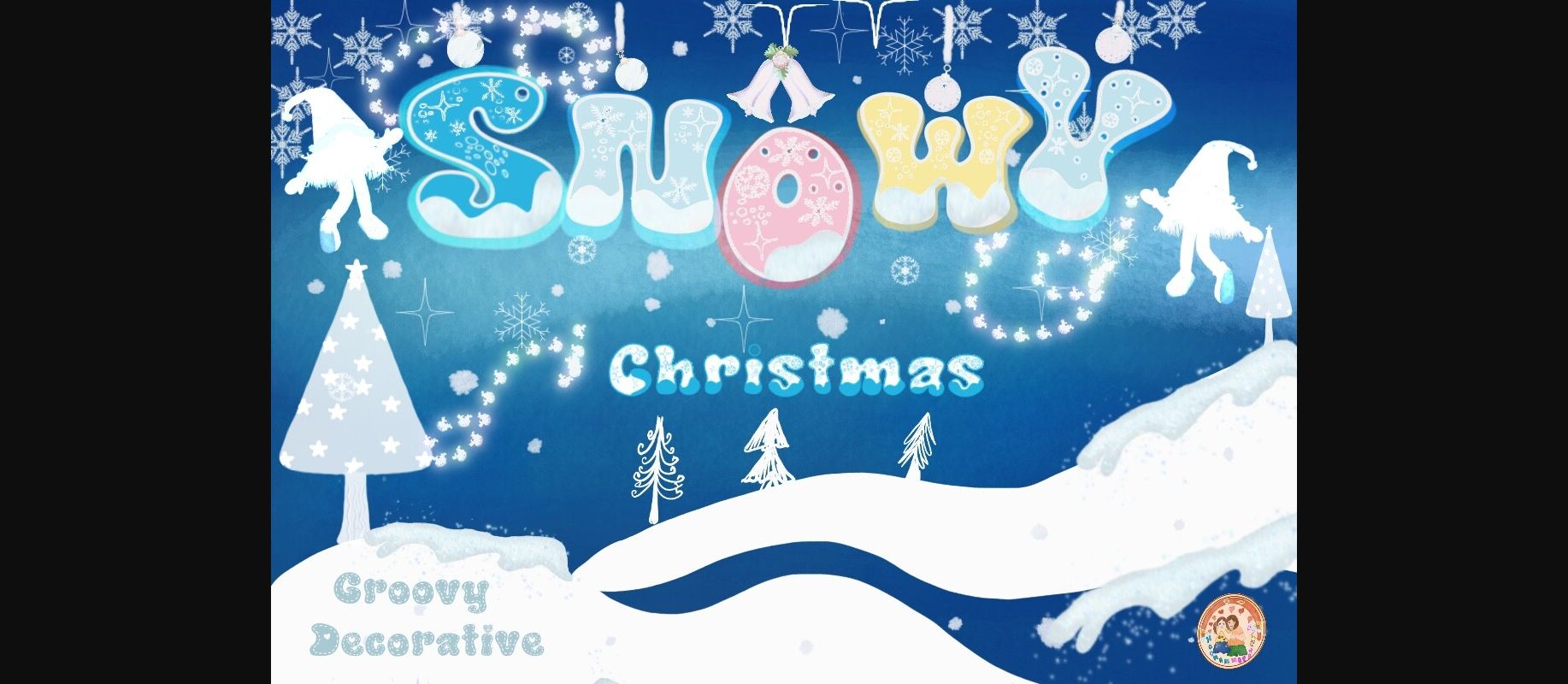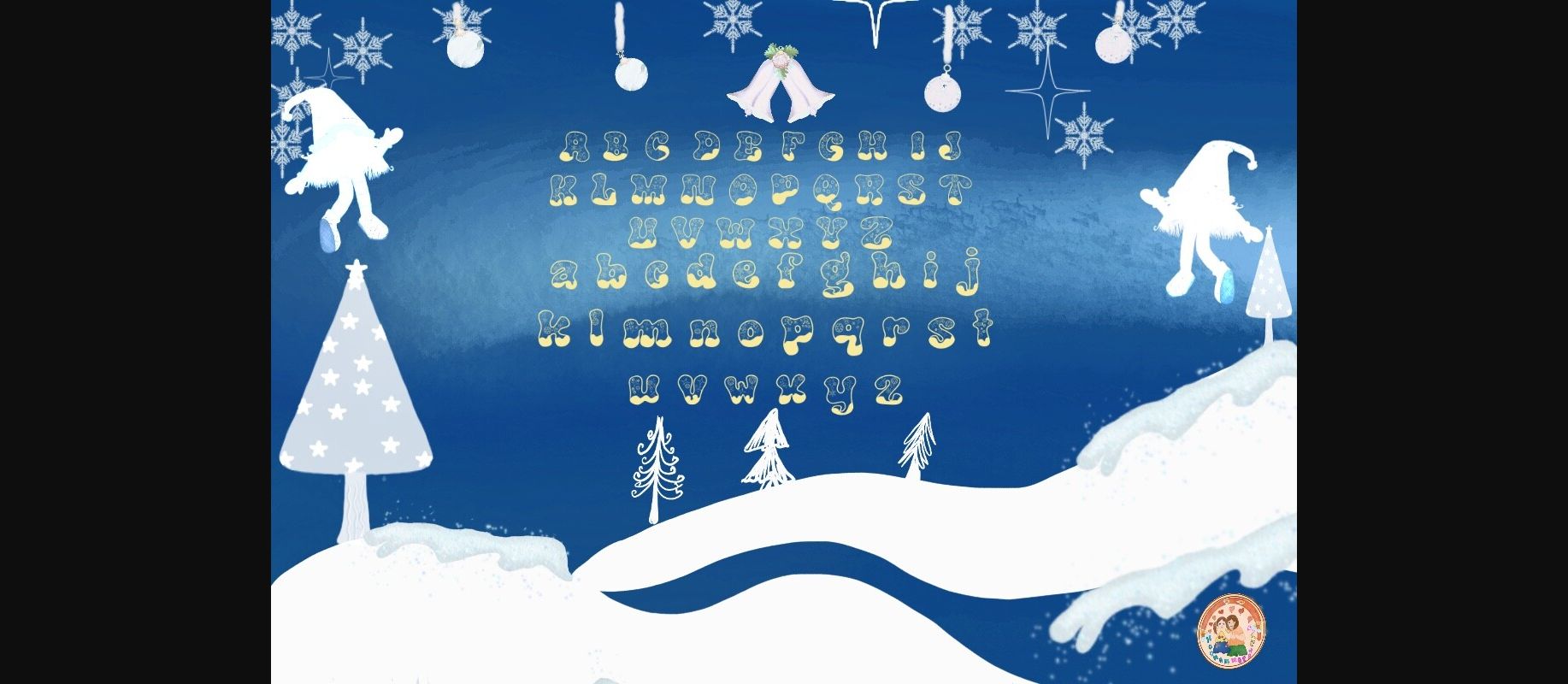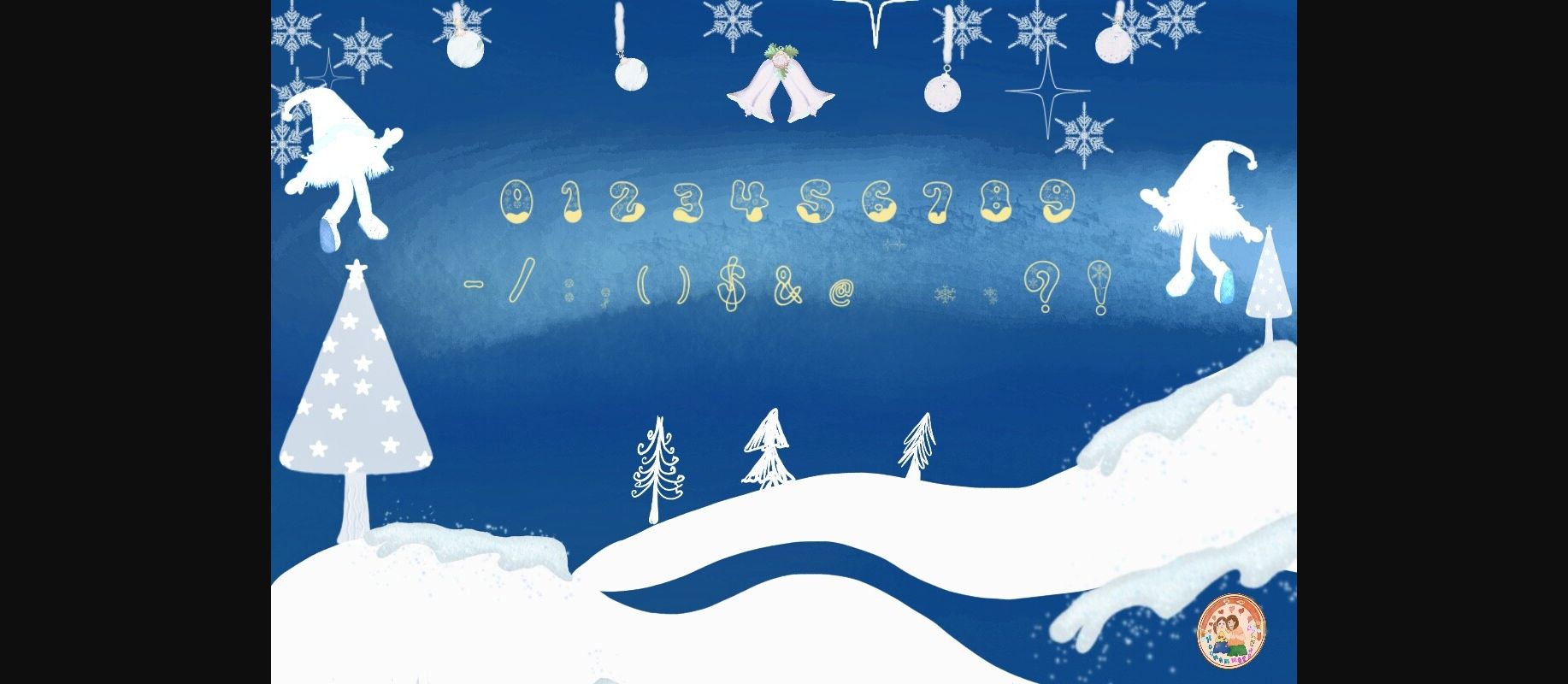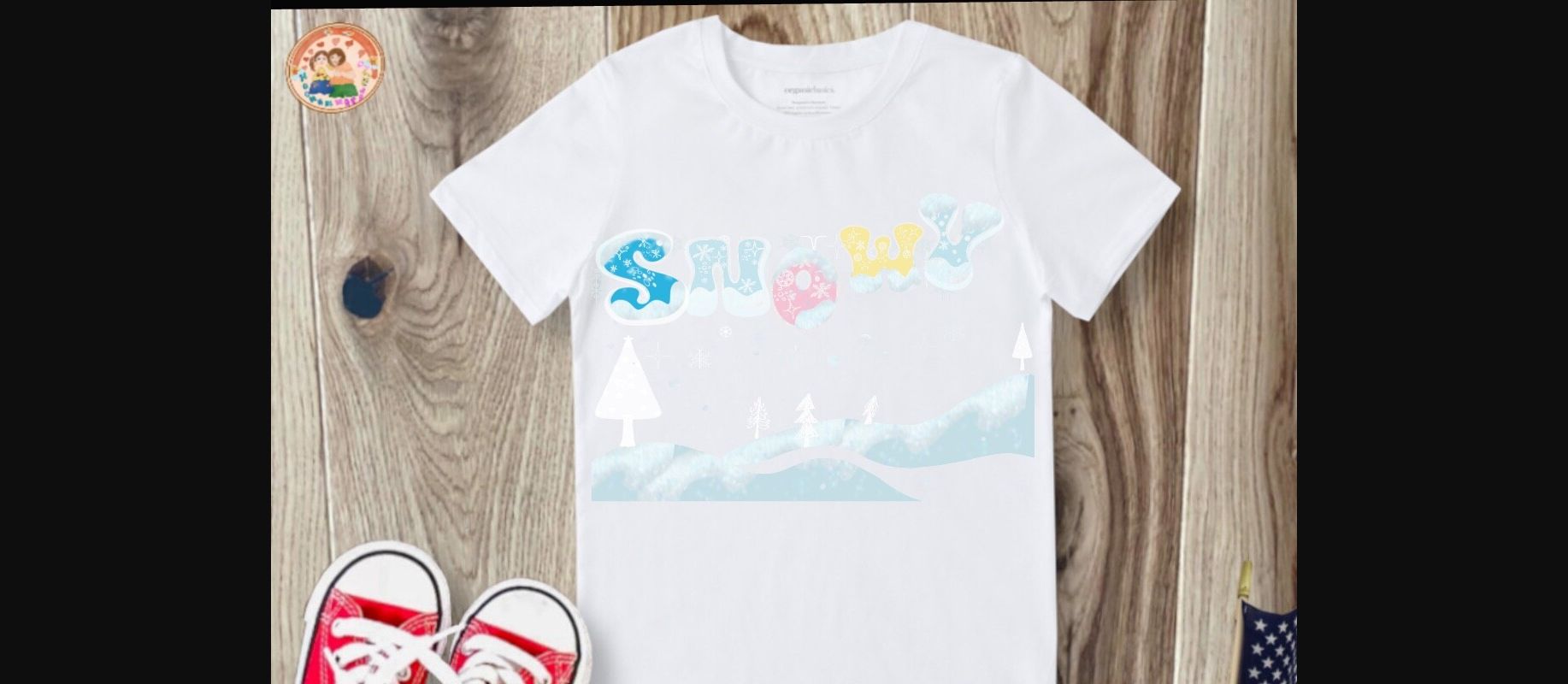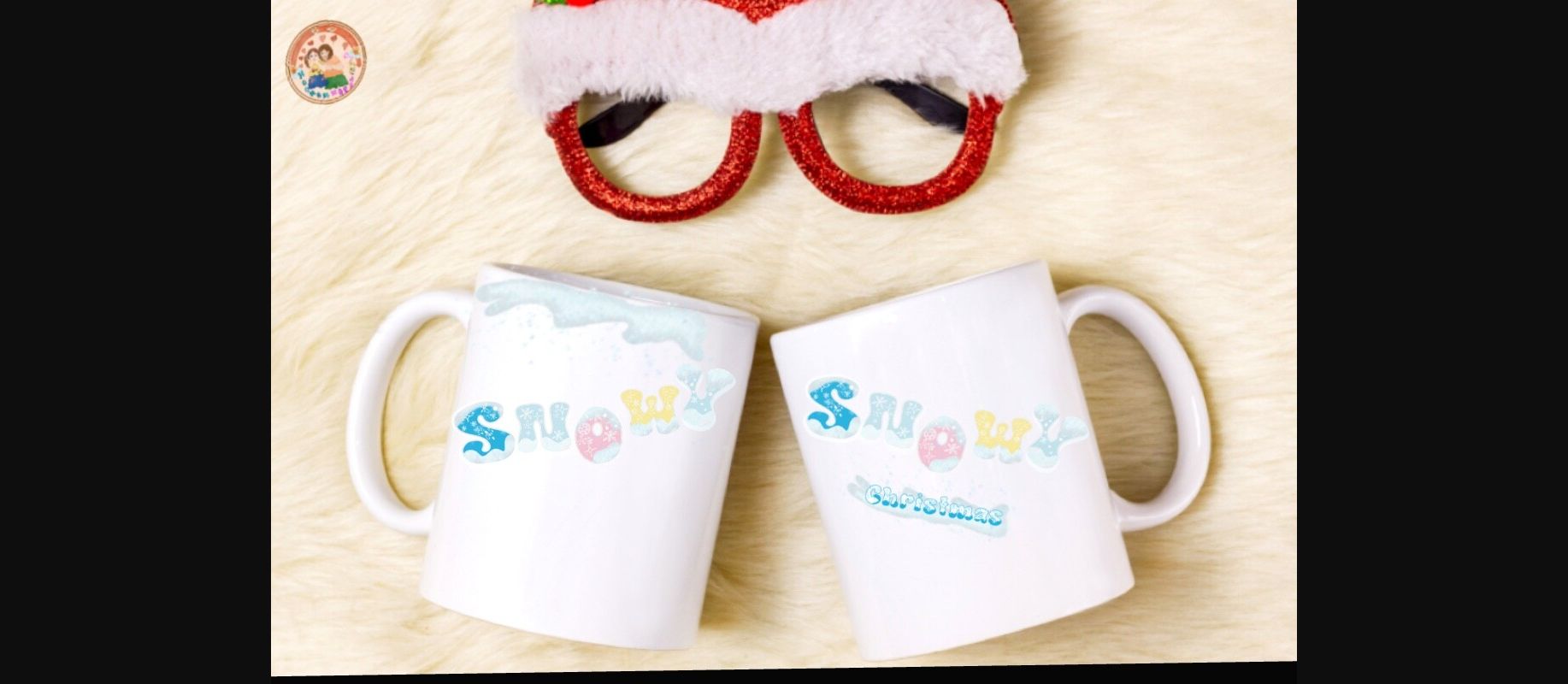
HomeDecorative FontsSnowy Christmas Font Decorative Fonts Snowy Christmas Font FacebookXPinterestWhatsApp 1 of 8 ... Snowy Christmas Font Poster 2... Snowy Christmas Font Poster 3... Snowy Christmas Font Poster 4... Snowy Christmas Font Poster 5... Snowy Christmas Font Poster 6... Snowy Christmas Font Poster 7... Snowy Christmas Font Poster 8... About Snowy Christmas Font Snowy Christmas is an incredibly quirky and sweet decorative font. Whether you use it for cartoon related designs, children games or just any creation that requires a lovely touch, this font will be an amazing choice. DOWNLOAD NOW People also explored Roboga Font Honeyline Font Rendering Scarlete Font Martline Font Under Beach Font Rosta Font Chainkit Font Modern Desktop Flat Lay Mockup Alligator Font 274 0 TagsSnowy Christmas Font Previous articleRetro Spooky FontNext articleThe Coaster Font LEAVE A REPLY Cancel reply Comment: Please enter your comment! Name:* Please enter your name here Email:* You have entered an incorrect email address! Please enter your email address here Website: Save my name, email, and website in this browser for the next time I comment. Personal Use Free Baveuse Personal Use Free Read more about this font Xplor Personal Use Free Read more about this font Anjhay Personal Use Free Read more about this font Omellia Personal Use Free Read more about this font BLOG Fonts That Capture the Spirit of New York City New York City is more than just a place—it’s an experience, a rhythm, a visual language... Top 7 Google Fonts Alternatives for Faster and Privacy-Friendly Web Design (2025) The 10 Best Handwriting Fonts to Add Personality to Your Designs How to Cut Any Font on Cricut: Convert a Font to SVG (Free)